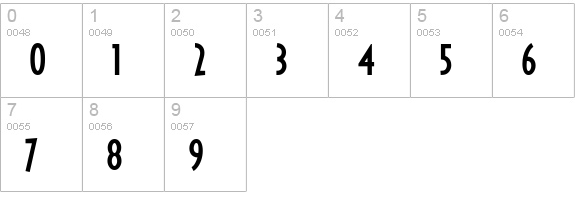
Ricks American Plain NF Font Details
Introducing Ricks American Plain NF font, a timeless and all-American typeface that embodies the spirit of the great United States. This classic font pays homage to the rich heritage of American typography, with its bold and sturdy letterforms that exude confidence and strength. Designed with meticulous attention to detail, Ricks American Plain NF font captures the essence of traditional American signage. Its clean and straightforward lettering is reminiscent of vintage shop signs, billboards, and advertisements, evoking a sense of nostalgia and authenticity. This font is not only visually striking but also highly versatile, making it suitable for a wide range of design projects. Whether you're creating logos, headlines, posters, or any other visual content, Ricks American Plain NF font adds a touch of Americana that instantly grabs attention and captivates the viewer. What makes Ricks American Plain NF font even more remarkable is that it is freely available to download at FontsMarket.com. Yes, you heard it right! This incredible font can be yours at no cost, allowing you to enhance your designs without breaking the bank. So why wait? Embrace the essence of American typography and download Ricks American Plain NF font today. Unleash your creativity and let this font take your designs to new heights. With its timeless appeal and cost-free availability, Ricks American Plain NF font is a must-have addition to any designer's toolkit.